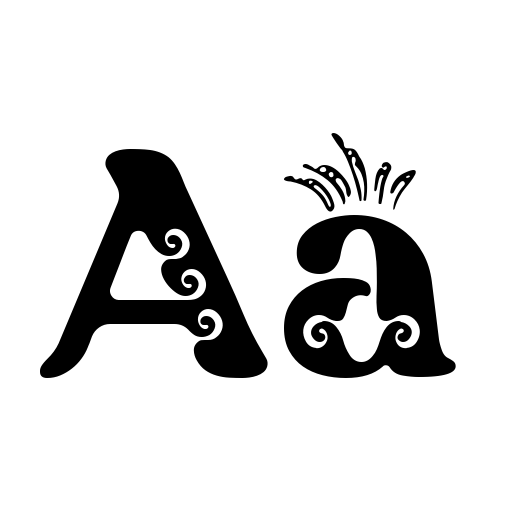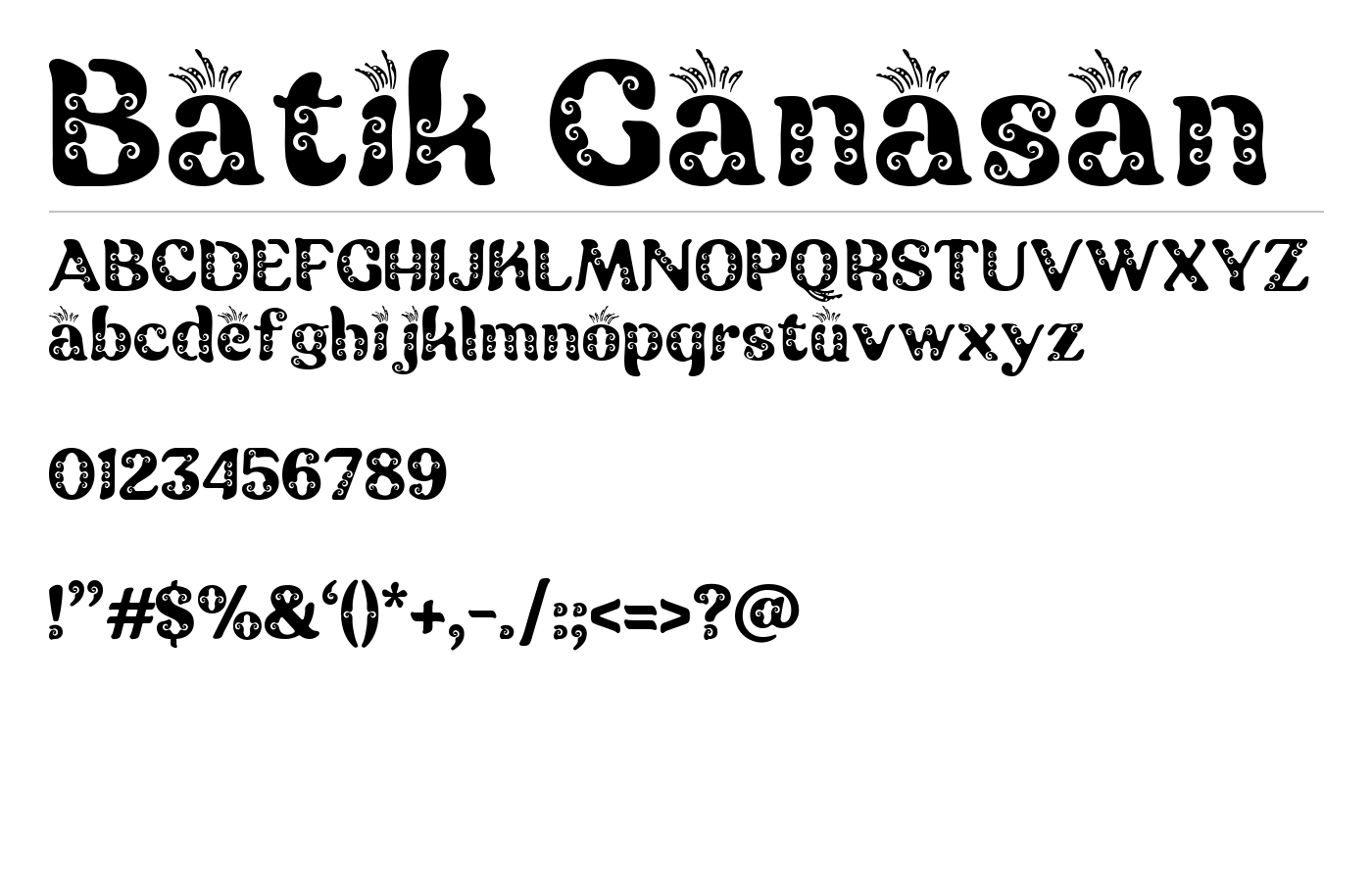
Batik Ganasan is a bold, decorative serif font with strong visual character, featuring whimsical swirls and ornamental details reminiscent of traditional batik patterns. Its unique, playful style makes it ideal for eye-catching headlines, logos, and creative designs that seek an artistic, cultural, or vintage feel. This font works best in display use where its intricate shapes can be fully appreciated.
Batik Ganasan Font
About Batik Ganasan Font